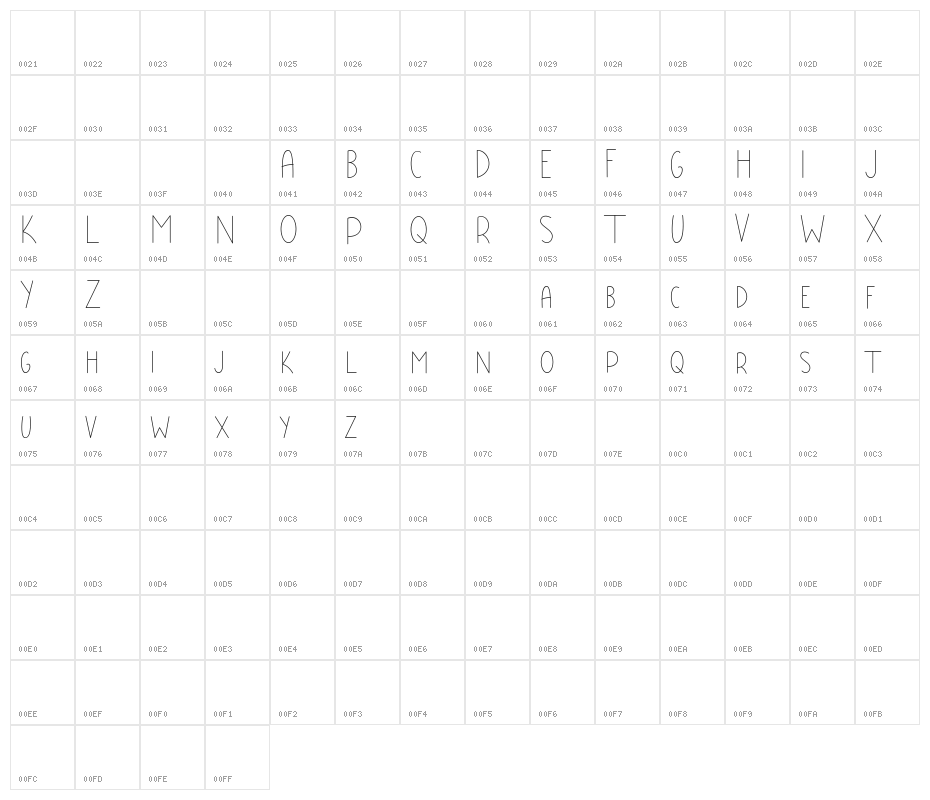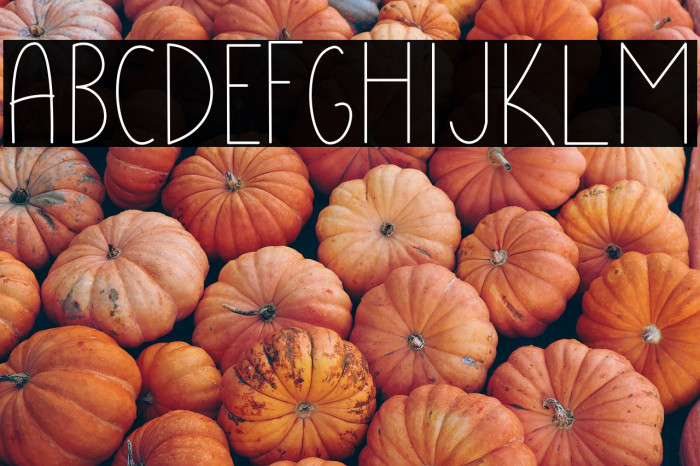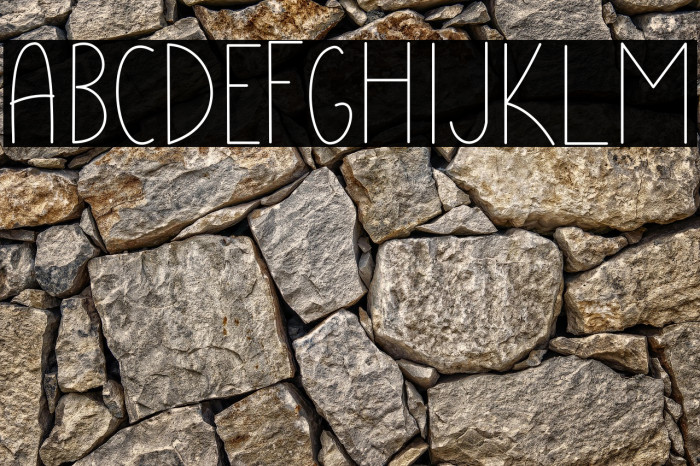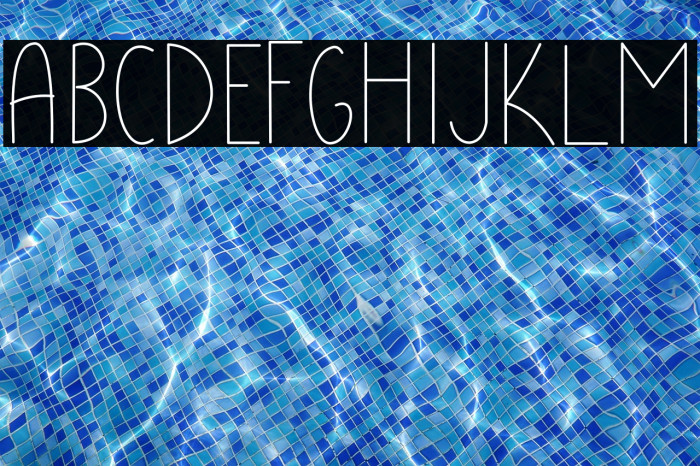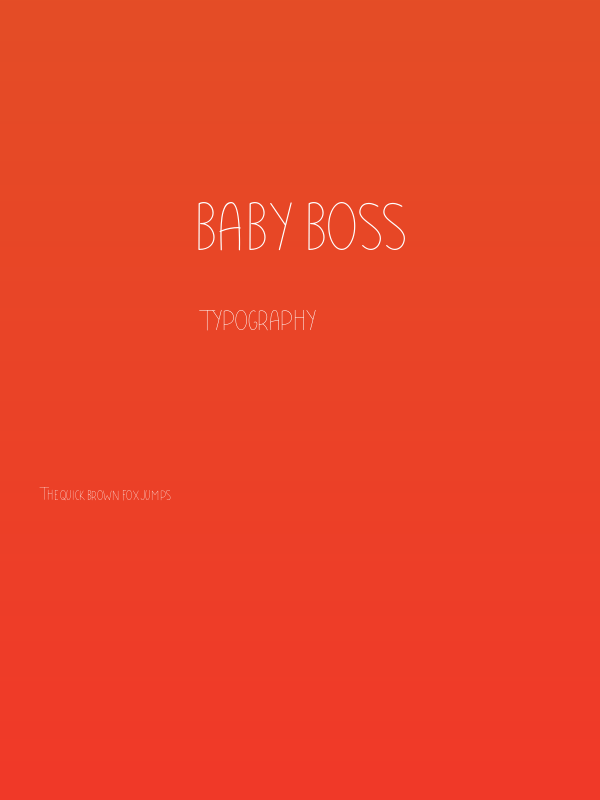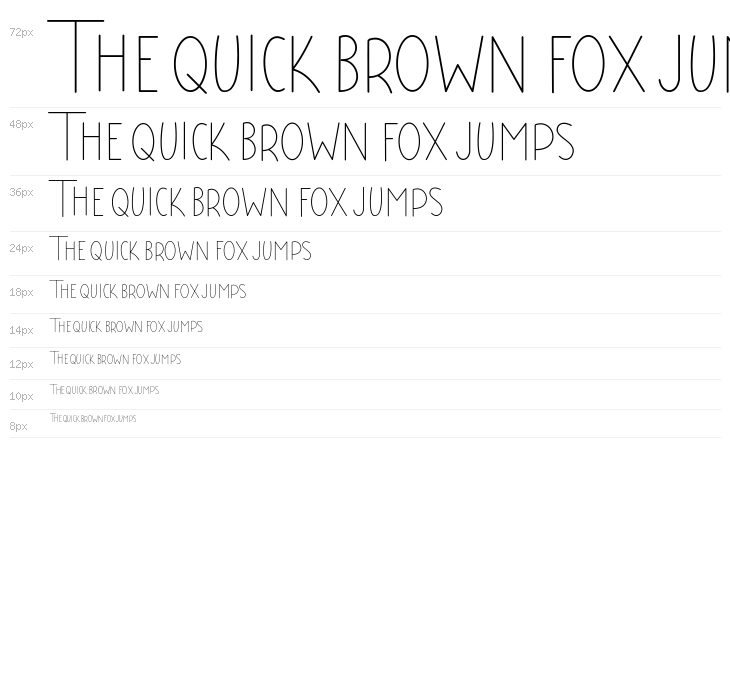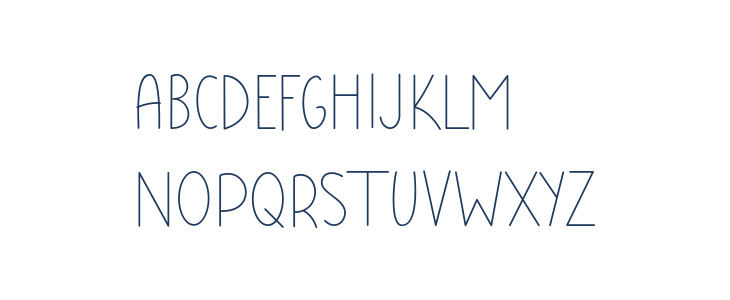
Baby Boss Font
Baby Boss Description
This font features a playful and whimsical design with tall, narrow characters that have a hand-drawn feel. The strokes are consistent in width, giving it a clean and modern appearance. The uppercase letters are slightly taller than the lowercase, maintaining a uniform height across the alphabet. The rounded edges and slight curves add a friendly and approachable touch, making it suitable for casual and informal settings. The overall design is simple yet distinctive, with a touch of elegance that makes it versatile for various applications.
| Proposed Projects | Ideal for children's books, playful branding, greeting cards, and casual invitations. |